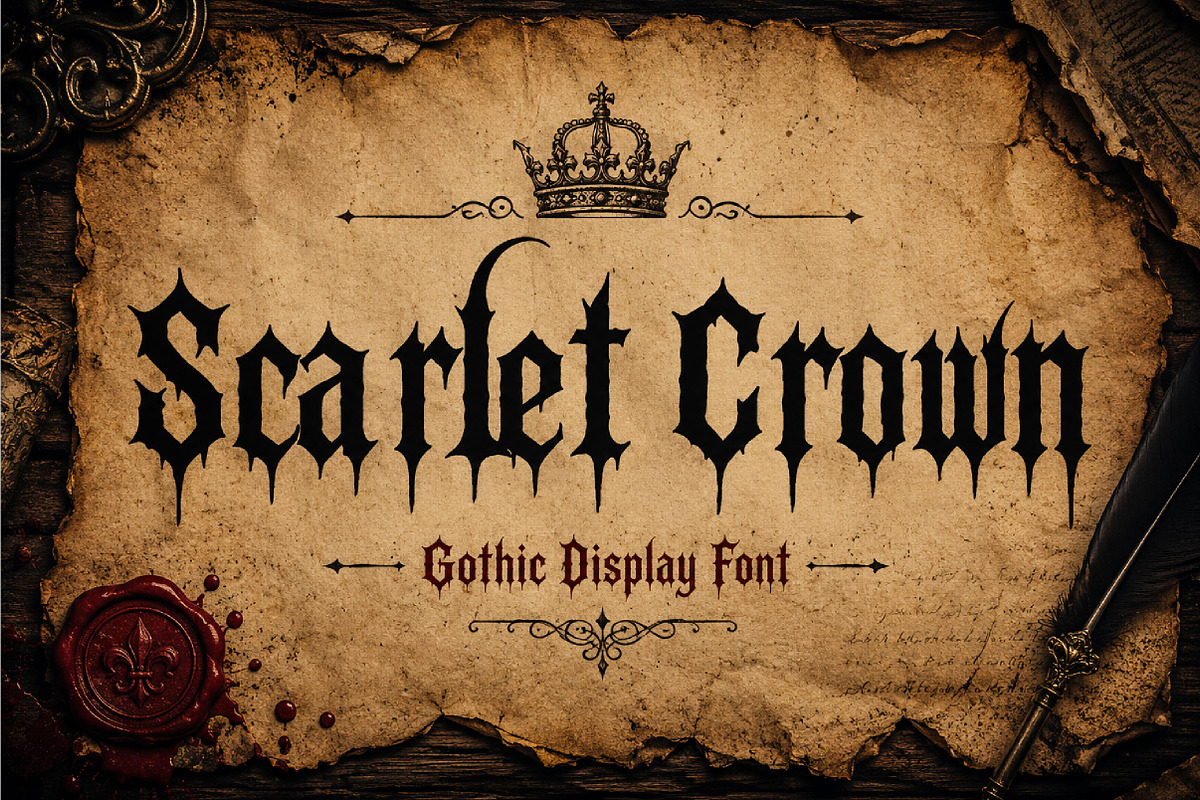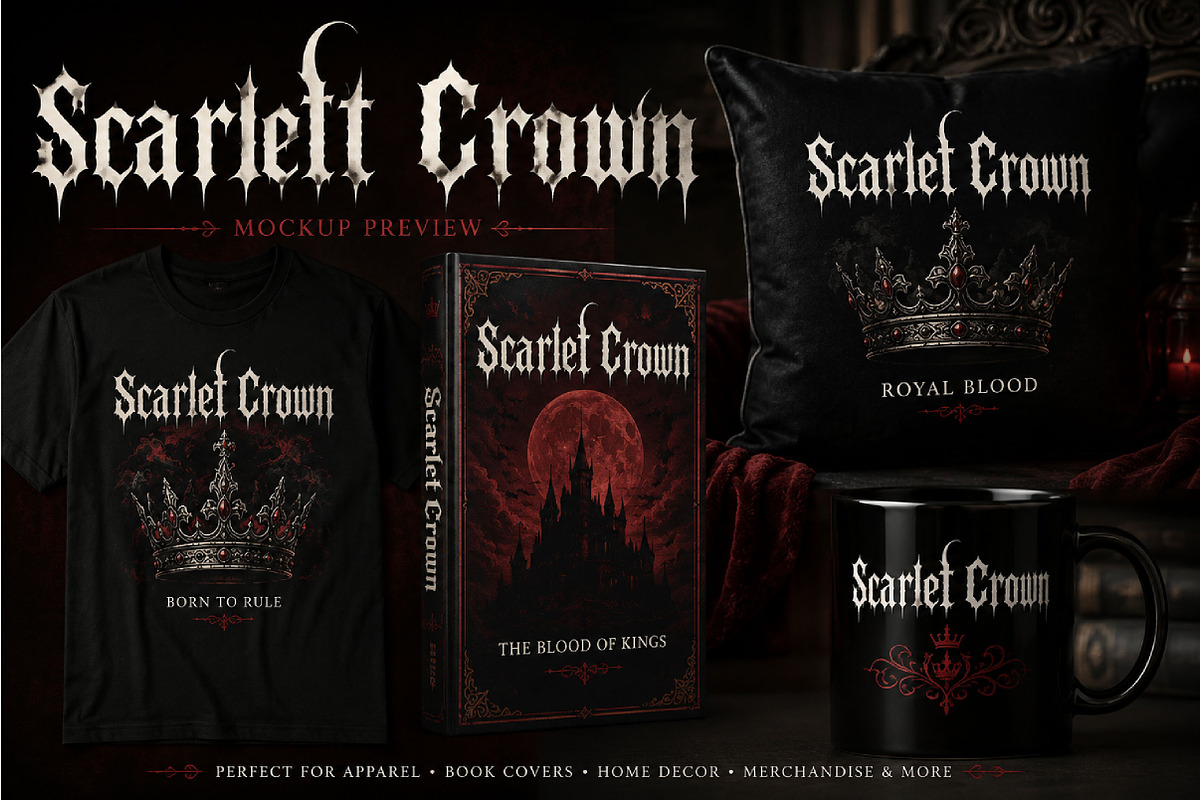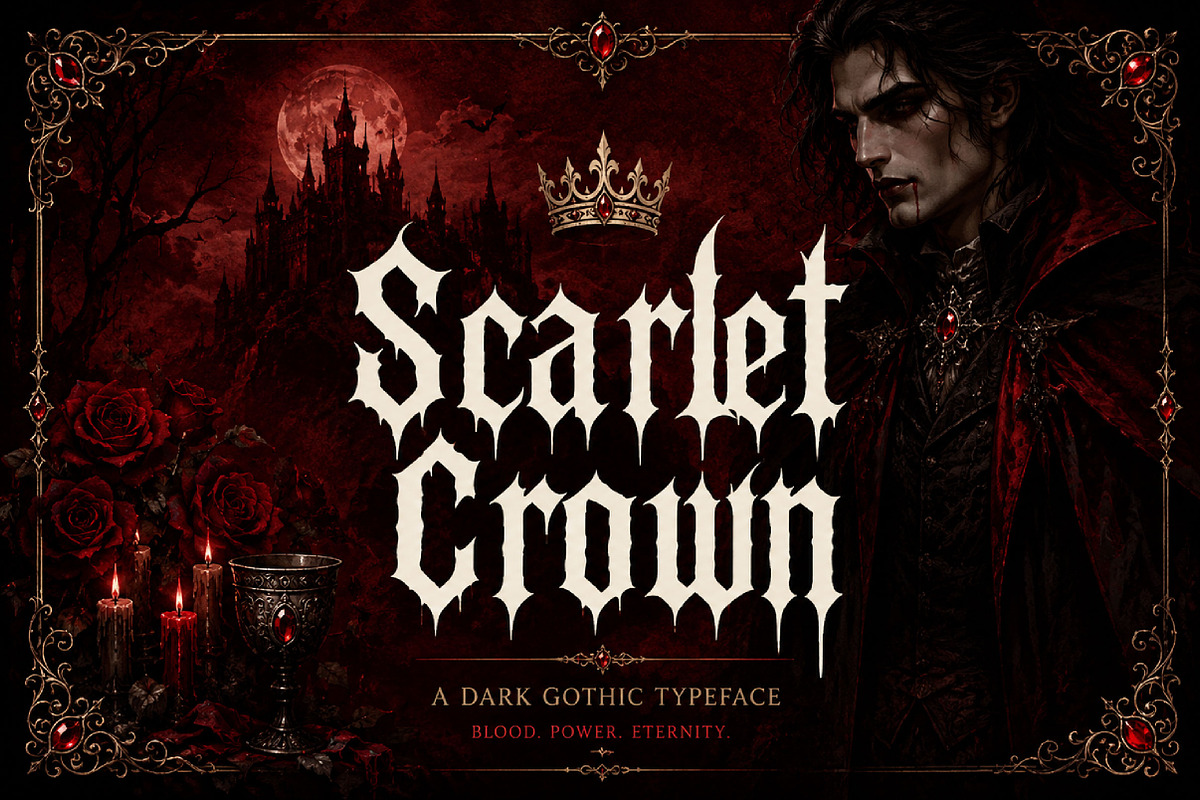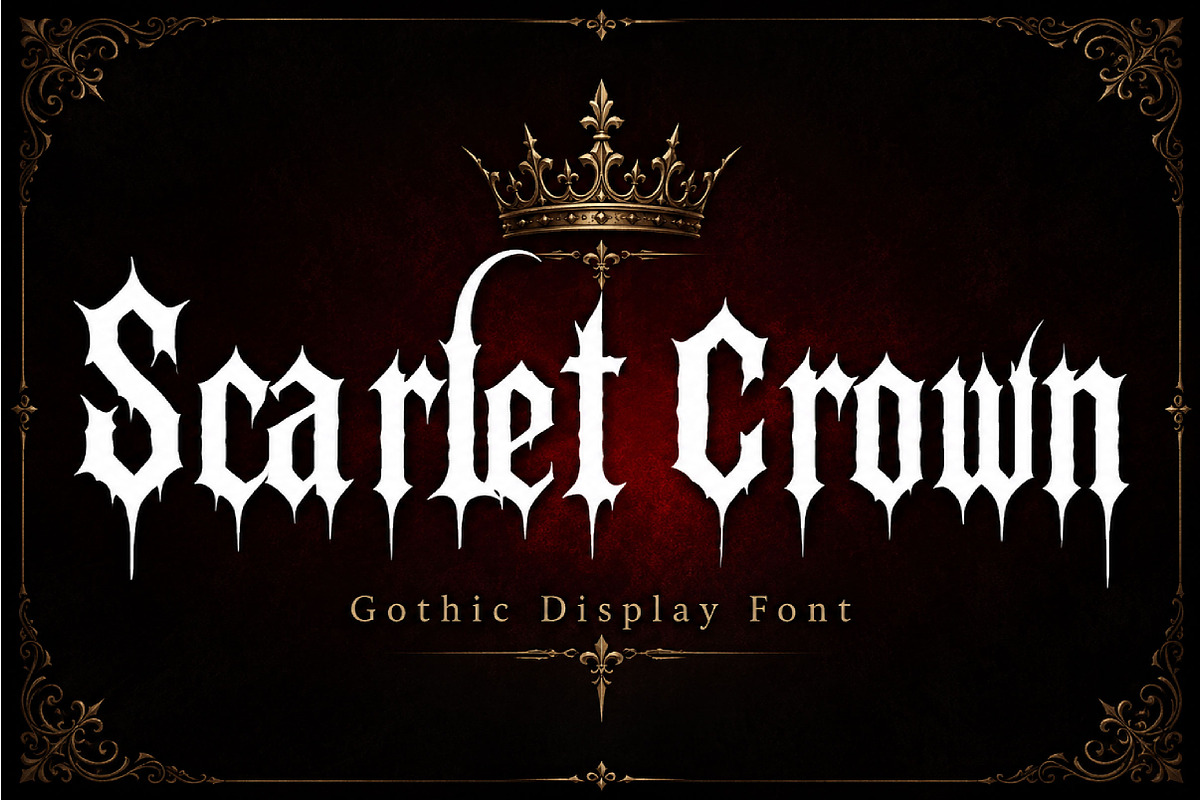
Scarlet Crown
Scarlet Crown – Gothic Blackletter Display Font
Scarlet Crown is a dramatic gothic blackletter font with sharp medieval-inspired letterforms, perfect for metal logos, dark branding, posters, apparel, album covers, and bold display typography.
Scarlet Crown is a powerful gothic blackletter display font inspired by medieval calligraphy, dark aesthetics, and classic heavy metal typography. Designed with sharp edges, dramatic strokes, and ornamental details, this font delivers an intense and commanding visual presence.
Its bold blackletter style creates a strong identity that works perfectly for music branding, band logos, gothic posters, tattoo-inspired artwork, streetwear, apparel design, gaming graphics, and dark-themed creative projects.
Scarlet Crown combines traditional old-English influences with a modern aggressive character, making it suitable for both vintage and contemporary designs. The detailed letterforms provide a striking decorative appearance while remaining highly impactful for large display use.
Whether you are creating album artwork, merchandise, horror-themed graphics, event posters, or edgy branding, Scarlet Crown adds a fearless and unmistakable personality to your typography.
Gothic blackletter style
Sharp decorative details
Medieval-inspired design
Strong display appearance